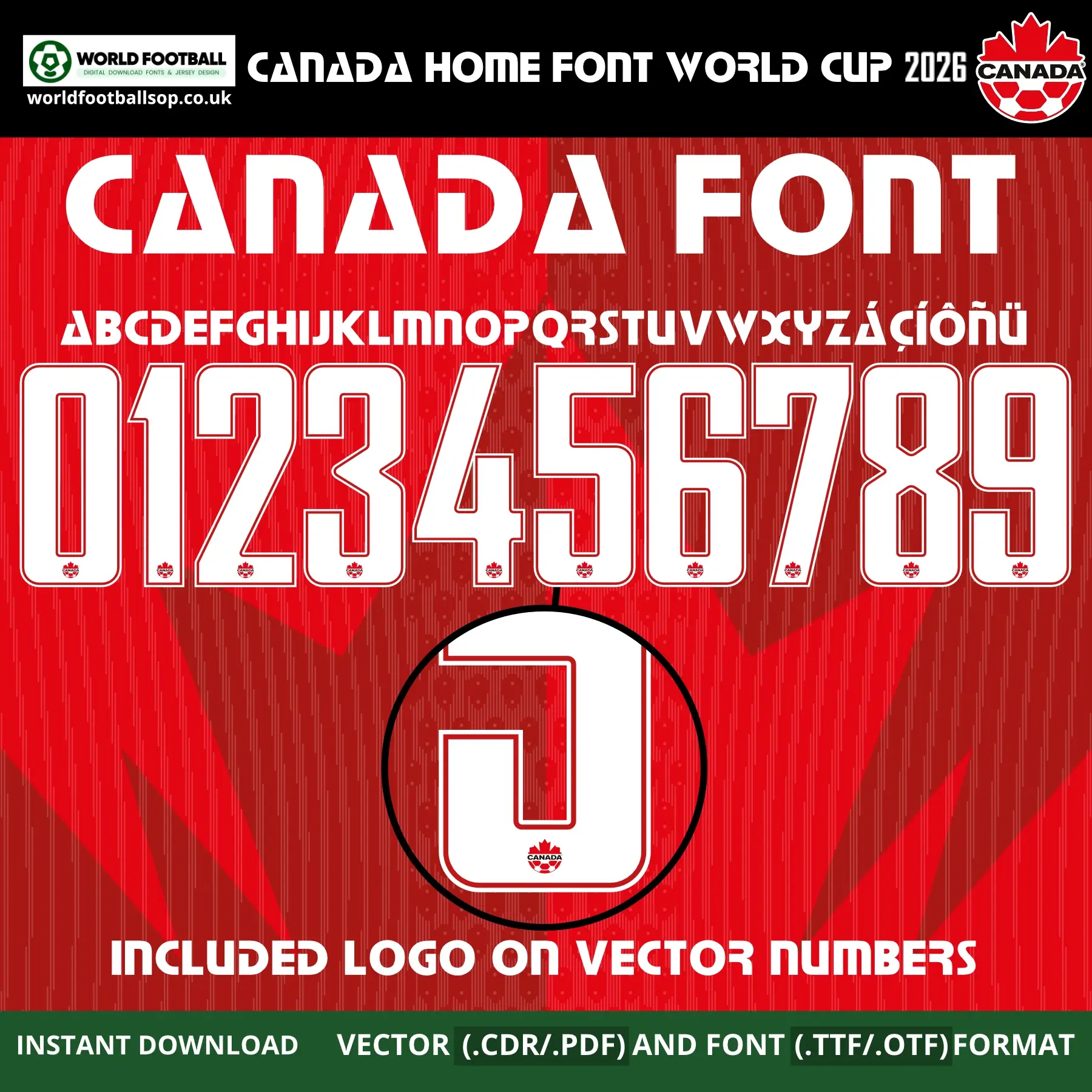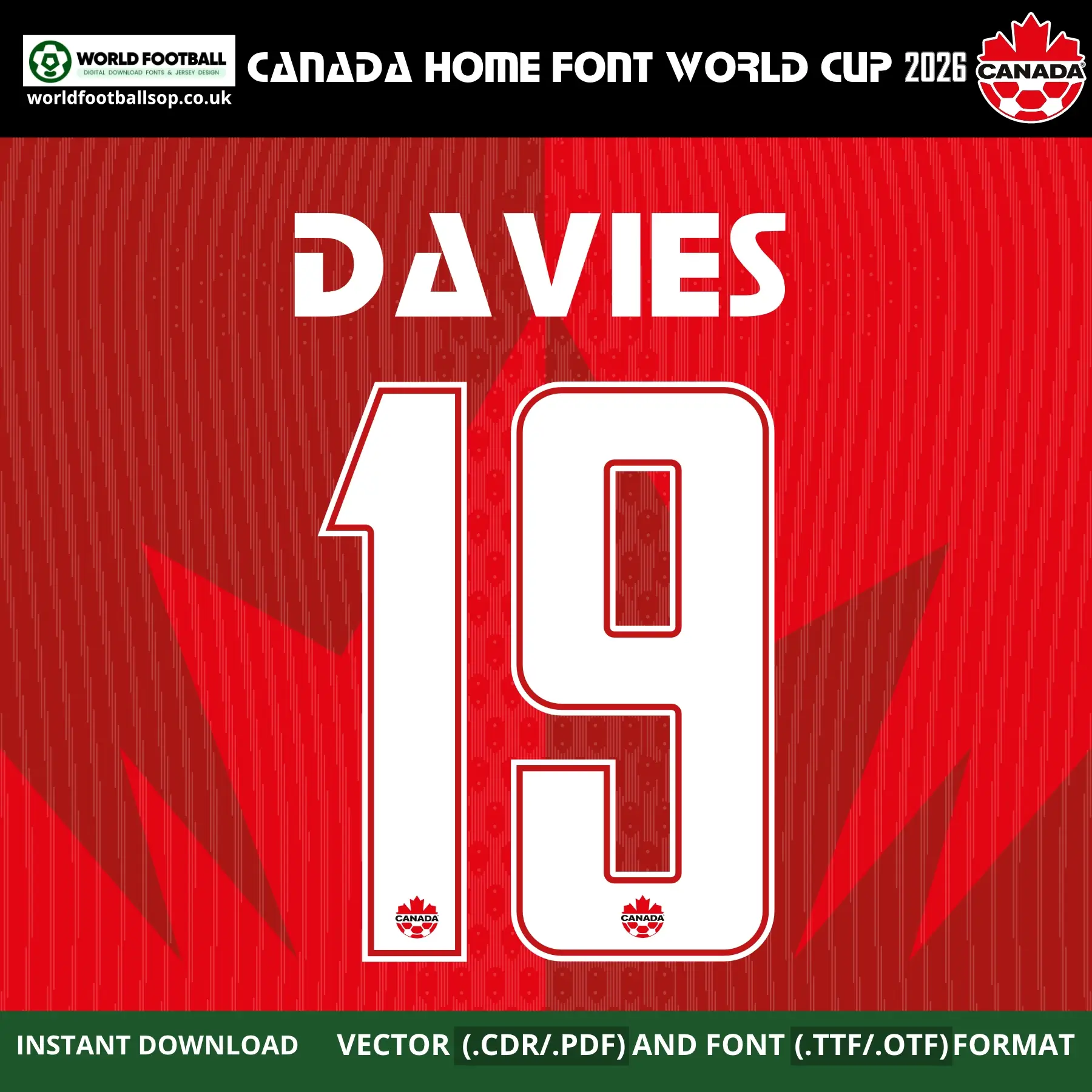
Canada Home Font World Cup 2026 – Maple Leaf Red Stencil Style
The Canada Home Font World Cup 2026 pack recreates Nike’s bespoke typeface designed for the Canada 2026 World Cup home shirt. The numbers are tall, squared and outlined in red with a white fill and inner stencil shape, while the letters font football feature sharp triangular cuts that echo the maple‑leaf geometry from the all‑red home kit.
Perfect for kit printers, collectors and designers, this pack lets you produce accurate Canada home font namesets for every Canada supporter jersey. Vector numbers include a small Canada Soccer crest at the base, while the installed TTF/OTF fonts keep things clean for general design projects, thumbnails and social media artwork. You can easily create “DAVIES 19” or any other player name to match the on‑pitch look of Canada’s host‑nation 2026 home strip.
Full uppercase A‑Z alphabet plus extended Latin characters (Á Ć Ć É Í Ó Ń Ő Ÿ, etc.) to cover English, French and international player names.
Numbers 0‑9 in Canada 2026 home kit style, ready for back, front or shorts printing.
Design highlights
Maple‑leaf‑inspired geometry: Distinct triangular cuts in the letters, especially the “A”, matching Nike’s bespoke Canada 2026 font Football kit.
Home kit perfect match: White stencil numbers with red outline designed for the vibrant red jersey featuring a central tonal maple leaf graphic.
High‑visibility contrast: Bold white digits stand out on red fabric, ensuring great readability in stadiums and broadcasts.
Crest integration: Vector digits include a Canada Soccer‑style badge at the base, just like official match shirts, while the installable font version stays clean for general design.
Designed to match the Nike Canada 2026 World Cup home kit, which uses a bright University Red base, tonal maple leaf pattern and white detailing to express national pride. The bespoke font ties into that story with angular maple‑leaf cuts and modern stencil construction, giving Canada a unique visual identity as tournament co‑hosts.